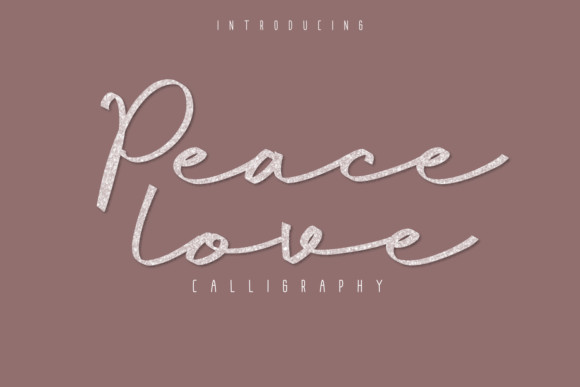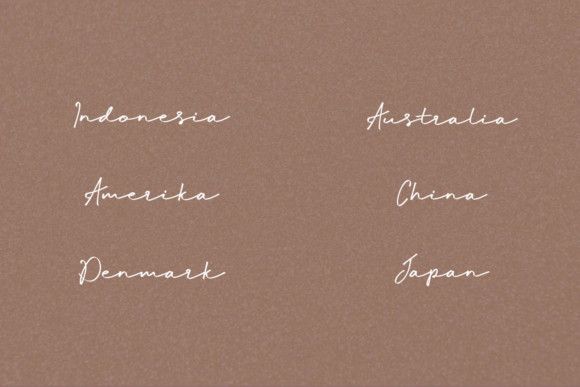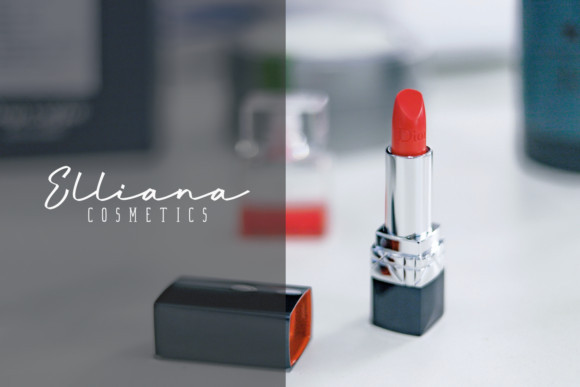
Peacelove Font
Peacelove is a calligraphy script font. Effortless will make your designs attractive and outstanding. Use it for weddings invitations, apparel, business cards, logos and social media posts.